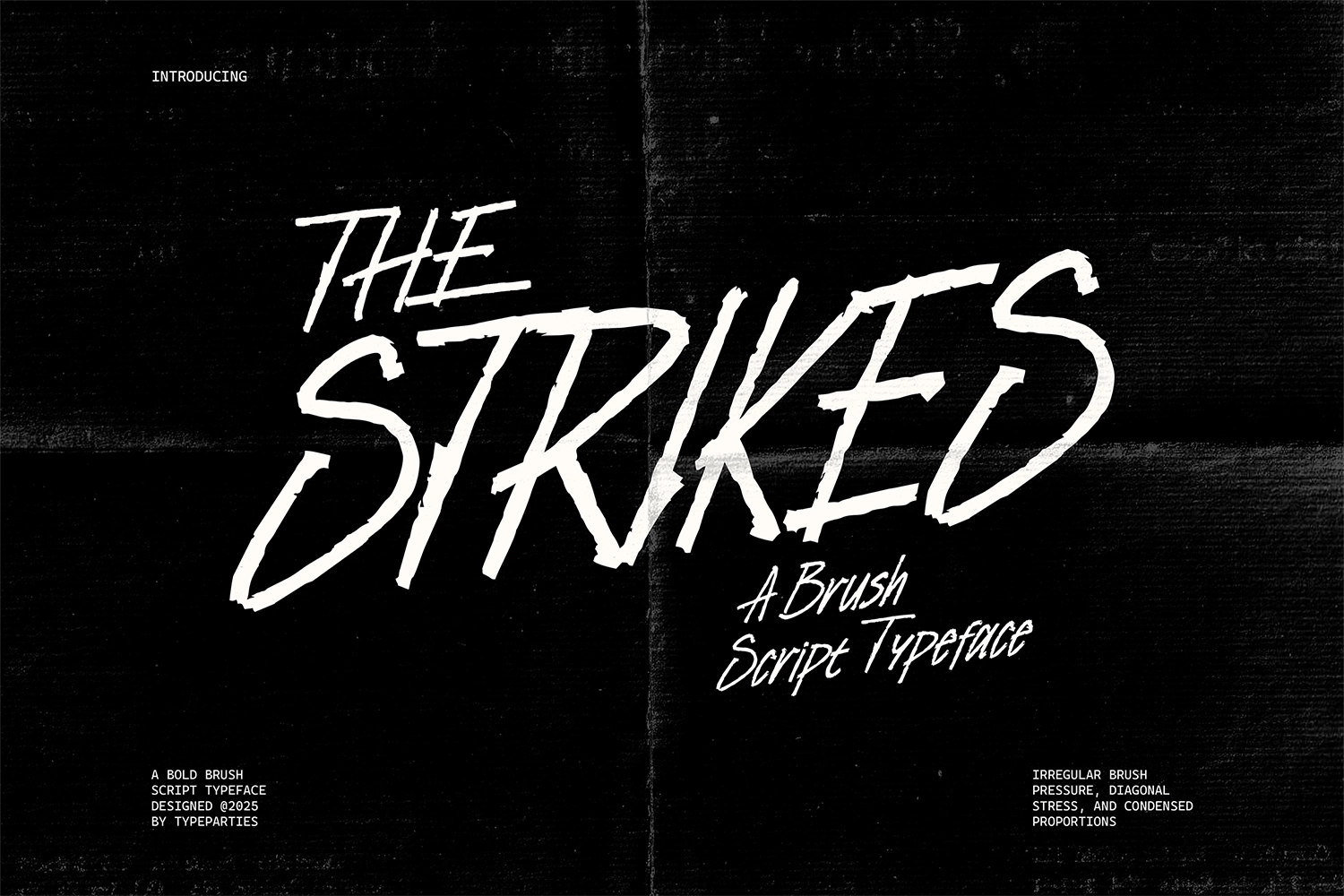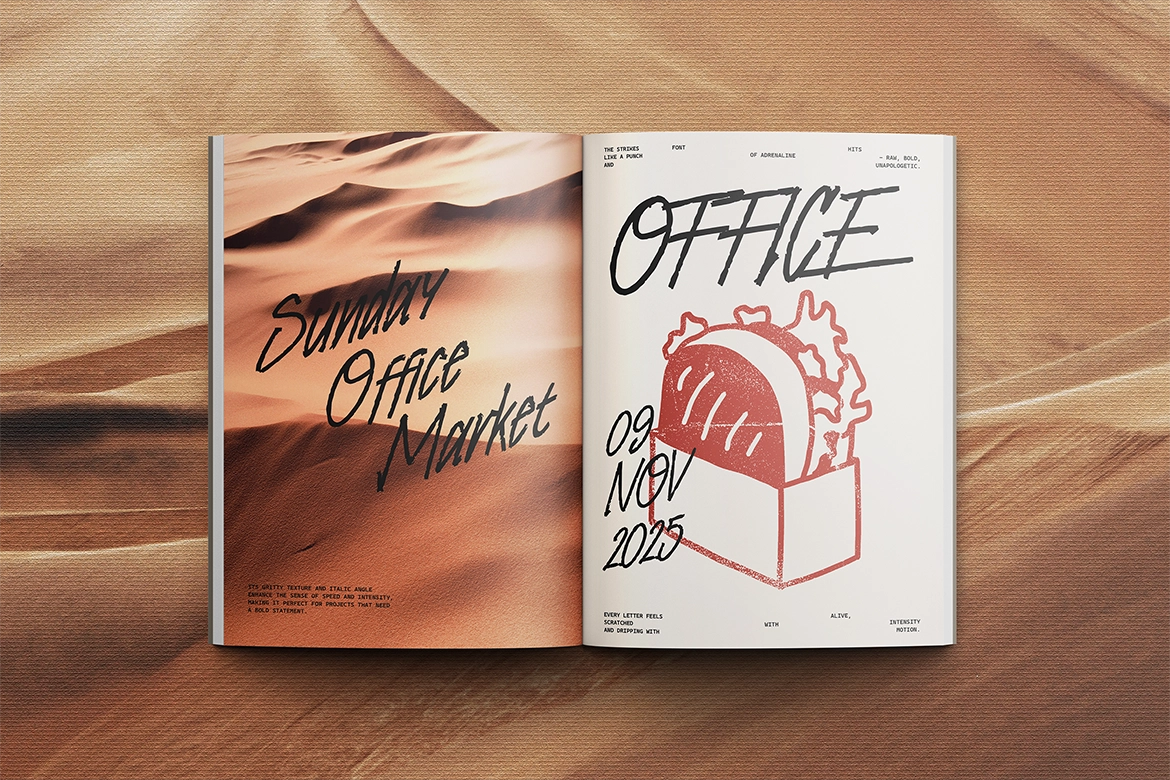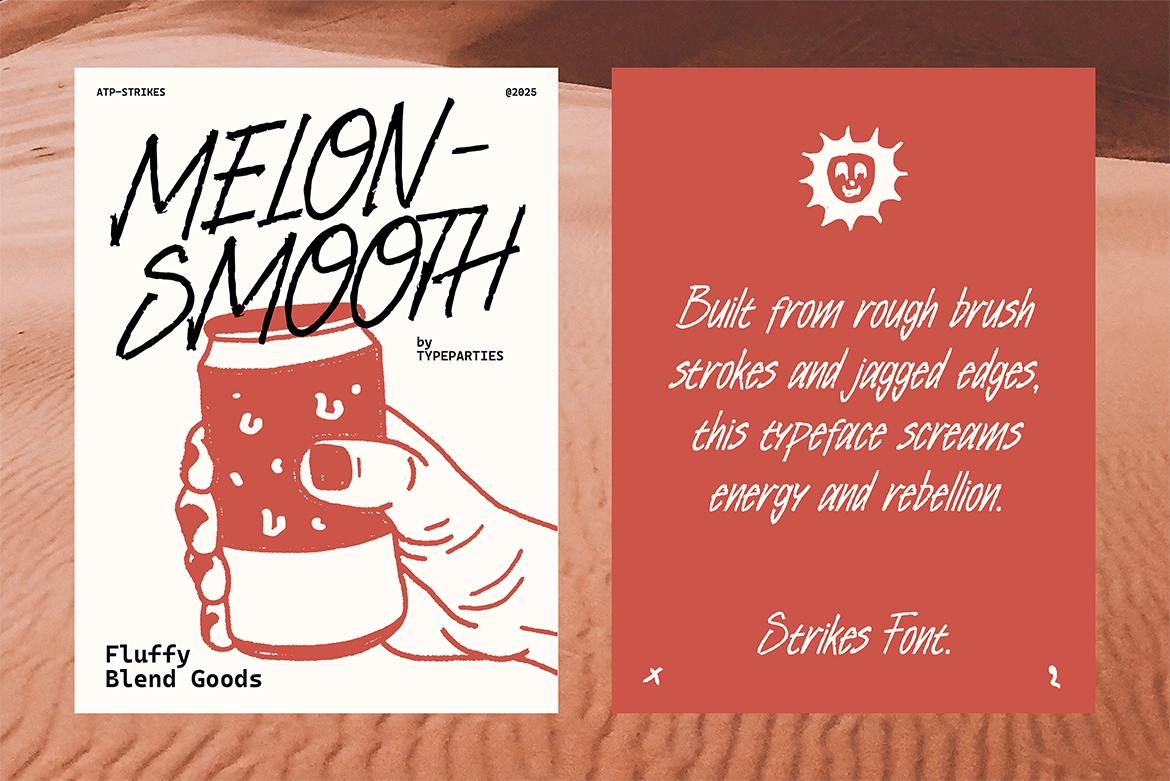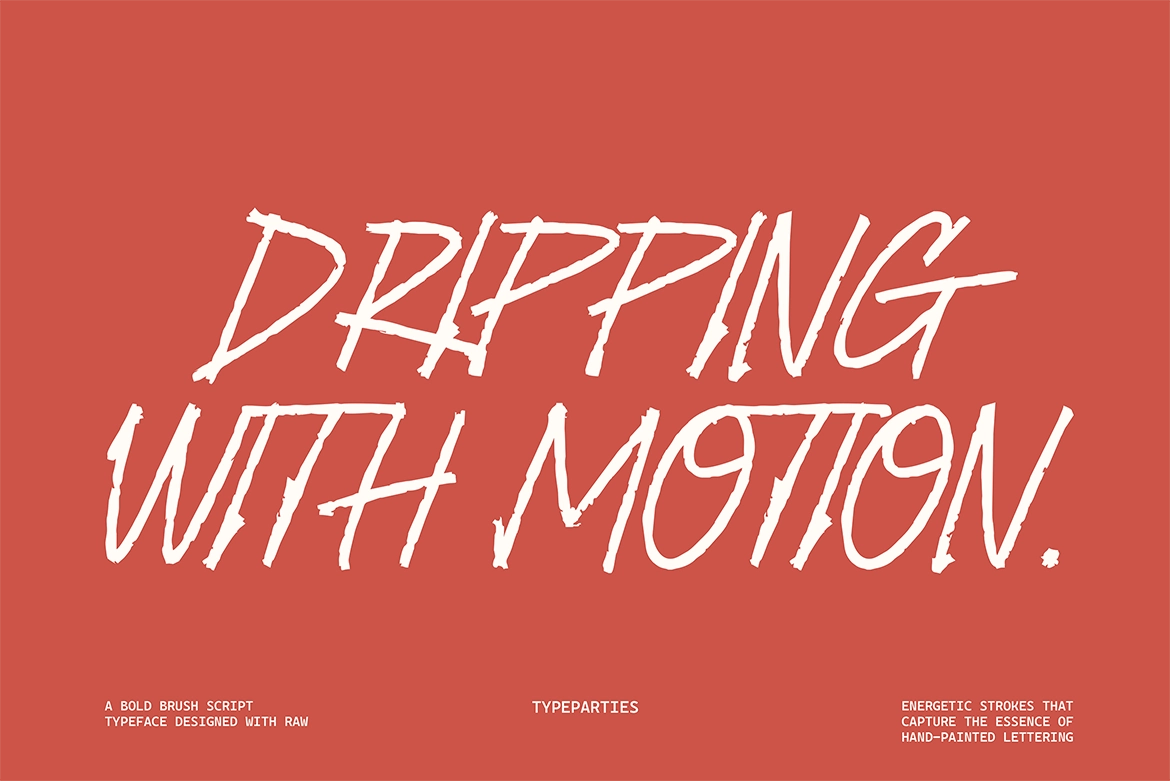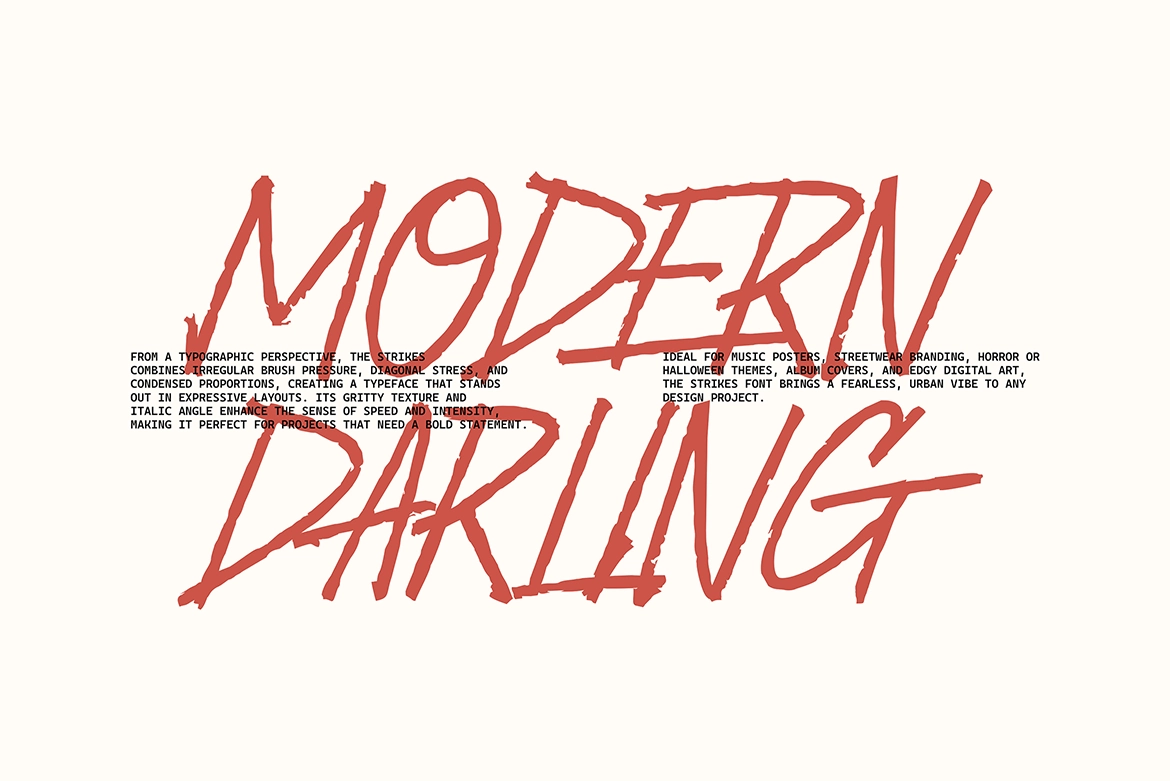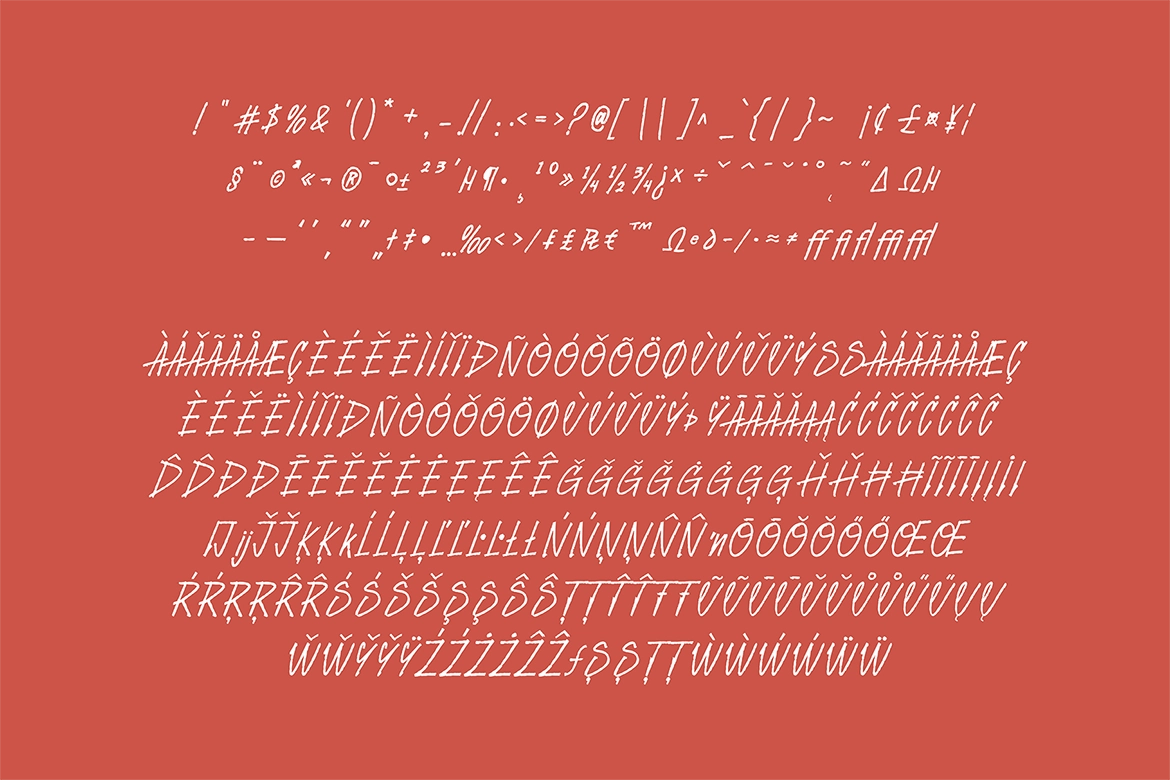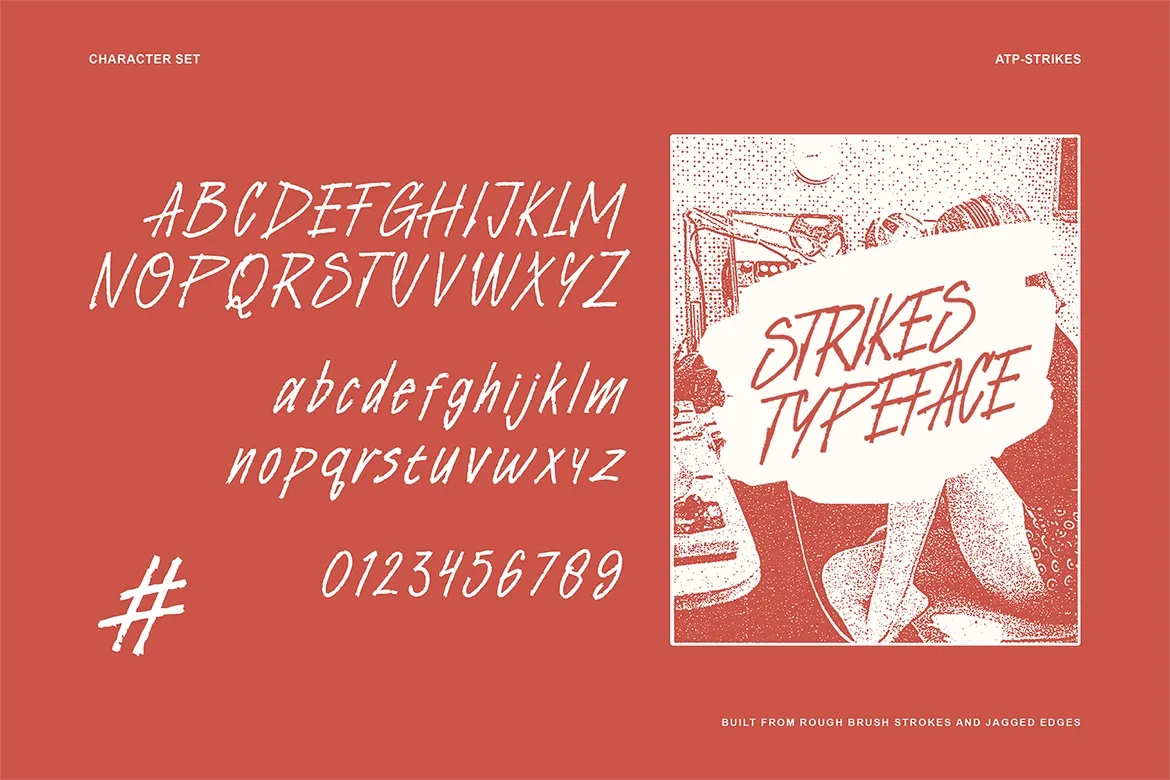
Strikes - Handwritten Punk Poster Font
Unleash raw creative power with Strikes – Handwritten Punk Poster Font , a fierce, high‑energy typeface inspired by the attitude of underground music and urban rebellion. Crafted with rough brush strokes, sharp edges, and untamed motion, Strikes captures the spirit of noise, chaos, and confidence.
Every imperfect curve and jagged line feels intentional, giving your typography a handcrafted edge that’s impossible to ignore. Its condensed structure, dynamic slant, and distressed texture create a sense of speed and urgency — perfect for posters, album art, streetwear branding, or any project that demands attention.
Strikes font isn’t about polish — it’s about personality. Use it to make your message shout louder, move faster, and hit harder.